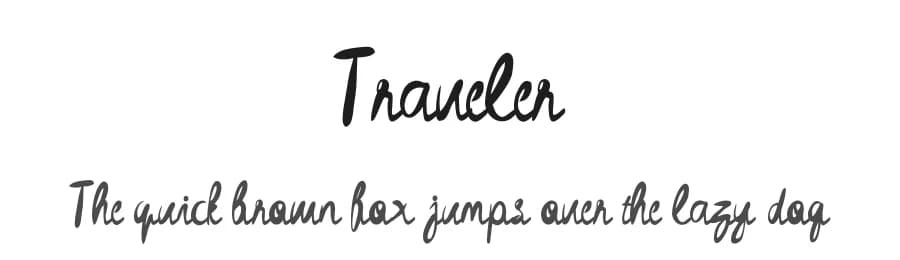
About Traveler Font
Traveler is a script & handwritten font designed by 3w protype. It includes 195 glyphs, a regular weight, OTF (CFF) format, and 187 languages. Traveler is free to download; check the license details on this page before commercial use. Script & handwritten fonts like Traveler work best for wedding invitations, greeting cards, signatures, and elegant branding.
Traveler Font is a script font that shines as a display or heading face. Pair it with a clean sans-serif or serif font for body text β the contrast creates a clear hierarchy while the two styles stay balanced and easy to read.
Traveler Font